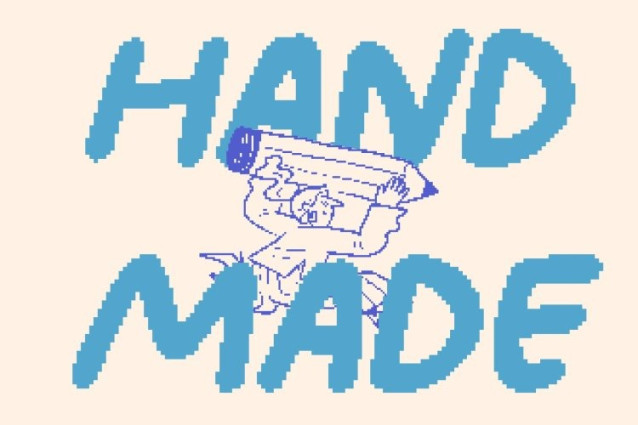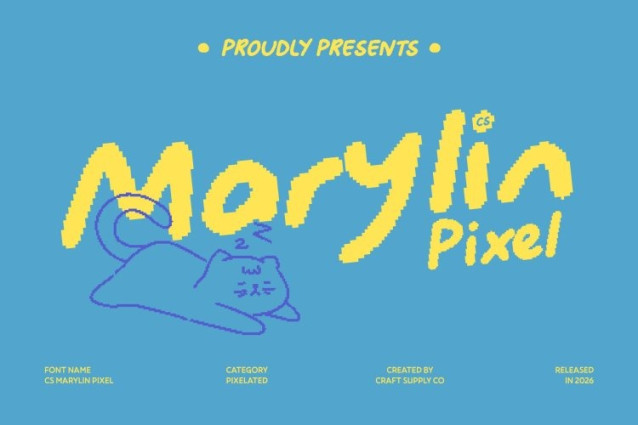
CS Marylin Pixel Font
CS Marylin Pixel Font This is a cute display font designed to radiate fun, charm, and cheerful energy. Its bouncy, handcrafted strokes give each letter a lively and whimsical feel, creating an aesthetic that’s warm, friendly, and instantly engaging. The playful personality makes this font perfect for designs that aim to spread happiness and visual joy.
Bouncy Shapes for Dynamic Visual Appeal
The energetic and slightly irregular letterforms bring natural movement and rhythm to your text. Each character feels like it’s happily bouncing across the page, adding life and excitement to every layout. This dynamic quality ensures your designs feel active, playful, and full of personality.
Friendly Strokes for Lighthearted Designs
With soft, rounded shapes, this font stays highly readable while maintaining its cute and cheerful look. The friendly strokes make text feel personal and approachable, helping your message communicate positivity, fun, and warmth in a simple yet expressive way.
Perfect for Digital, Retro, and Fun Projects
Ideal for kids’ projects, party invitations, playful branding, posters, and social media graphics, this font truly shines in joyful designs. The pixel style adds an eye-catching retro-digital feel, making it perfect for digital themes, games, or old-technology–inspired visuals. This font turns every design into a fun, nostalgic, and memorable experience.